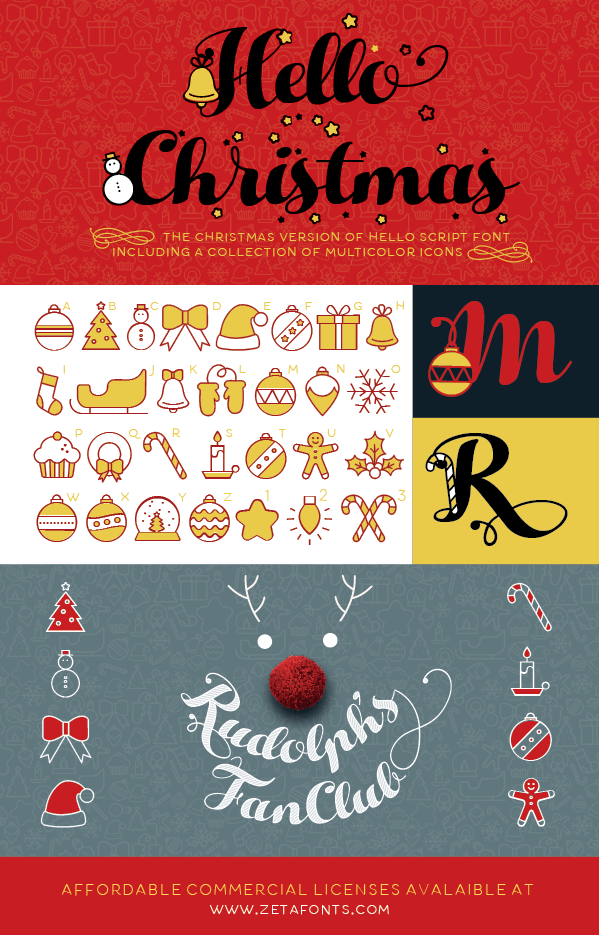
The Hello family features a sans serif companion (Hello Sans) as well as a christmas-themed version (Hello Christmas) with a set of Icons (Hello Christmas Icons), both featuring multilayer color fill. --- This font is FREE for NON-COMMERCIAL USES. For commercial uses you must get a license at: http://www.zetafonts.com/helloscript Have a question?: info@zetafonts.com |